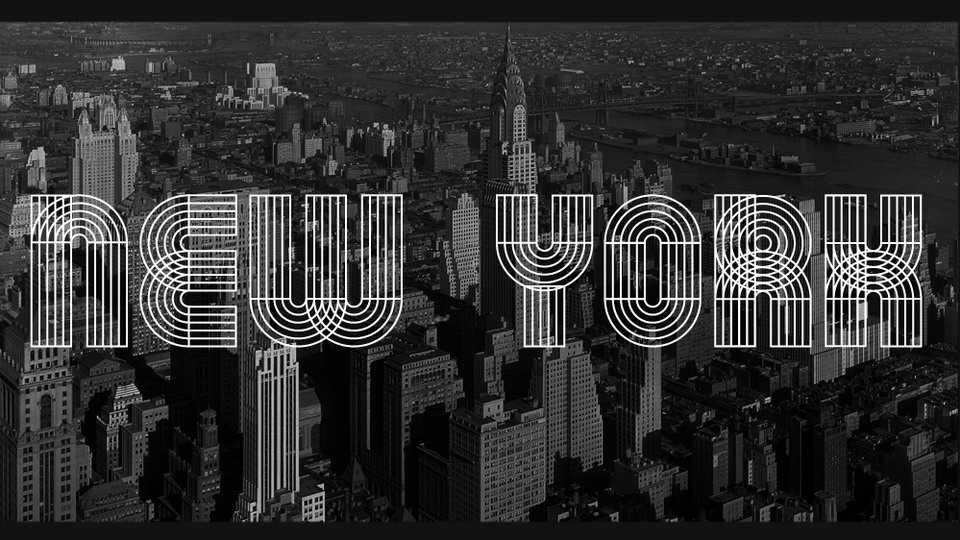
Download Orbits font, a retro inspired multiline display typeface in Thin weight. Great for posters, magazines, ads, headlines, prints and other creative typorgaphic projects.